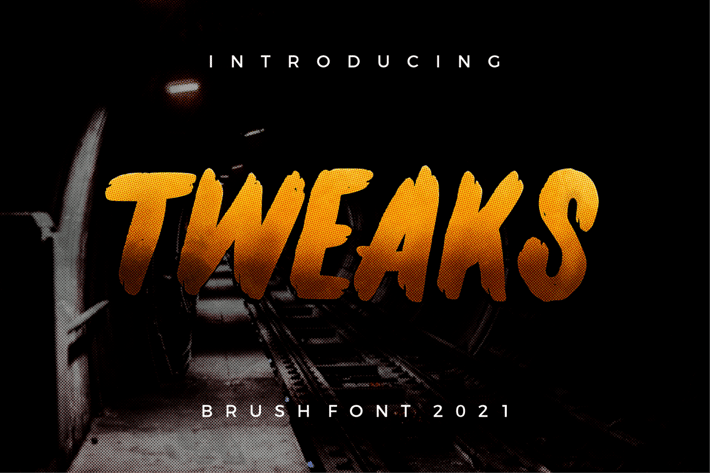
Tweaks Brush Font
Tweaks is masculine brush font, suitable for logo , poster, header, master sign and etc.
Features: Multilingual support, Uppercase and Lowercase, Numeral, Punctuation